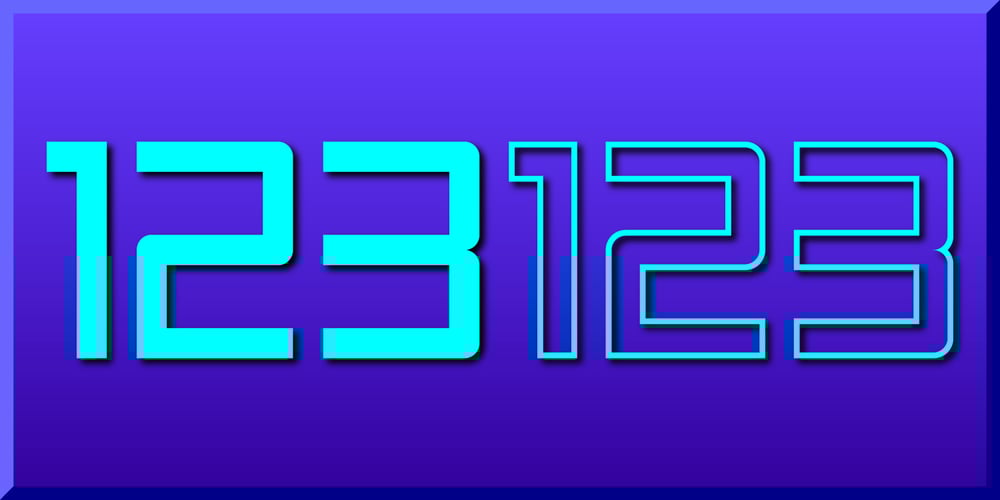
Display Digits One Font Family was designed by Gerald Gallo and published by Gerald Gallo. Display Digits One contains 1 styles and family package options. Display Digits One is a display number font with eight sets of variations of the same digits. The digits 0 through 9, with period and comma in appropriate variations, are prepared as (1) solid, (2) outline, (3) solid with contour outline, (4) outline with 3-D shadow, (5) 3-D shadow only, (6) outline with drop shadow, (7) positive in circle, (8) negative in circle.